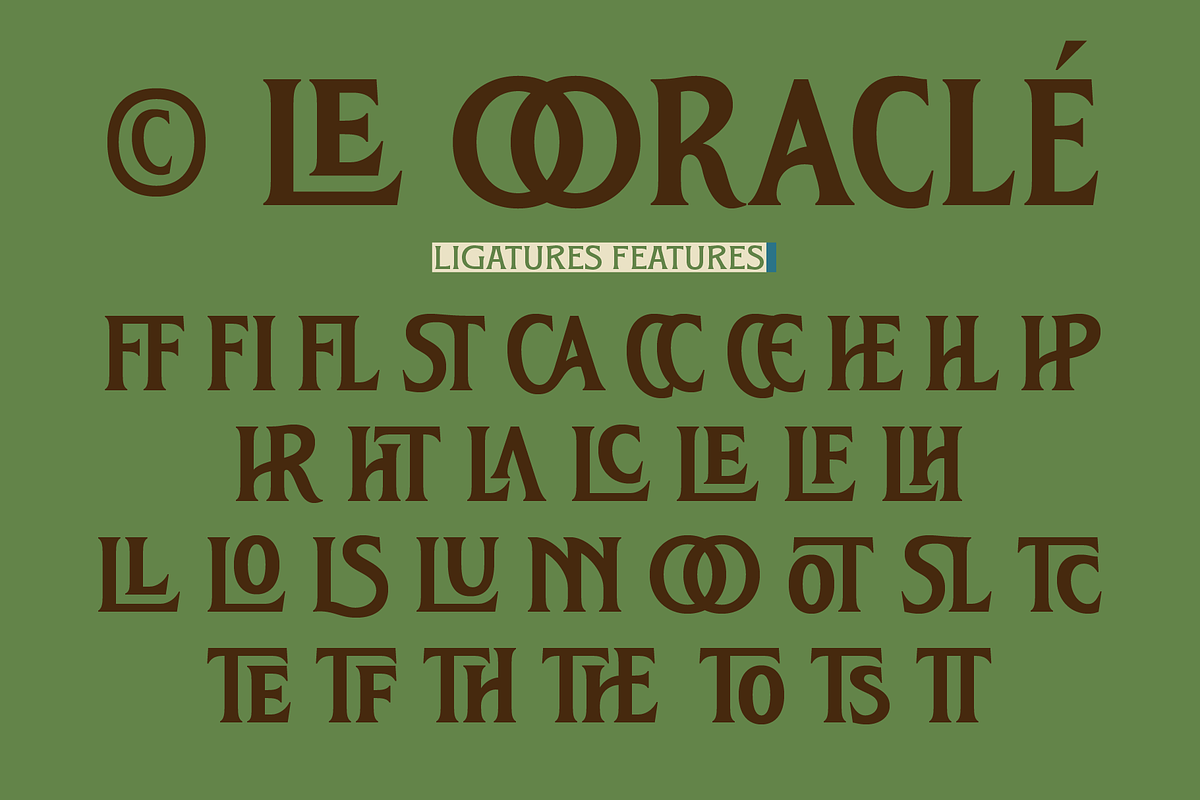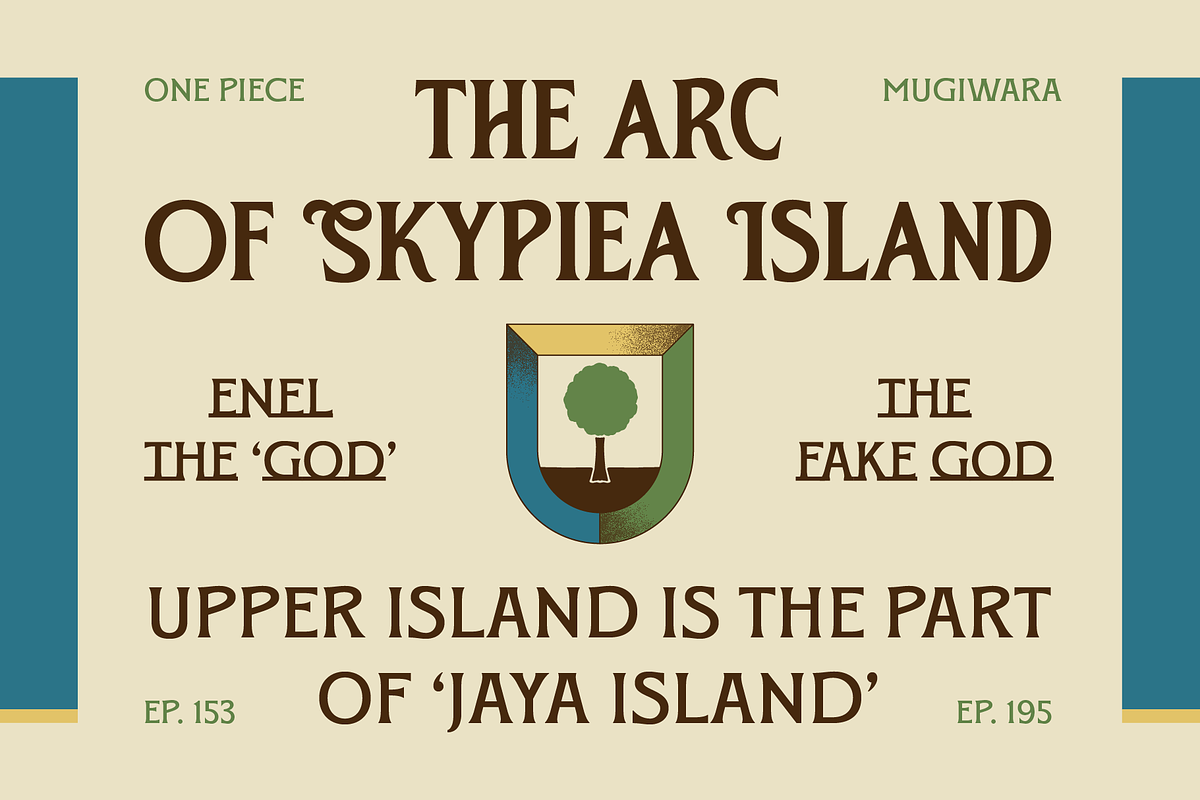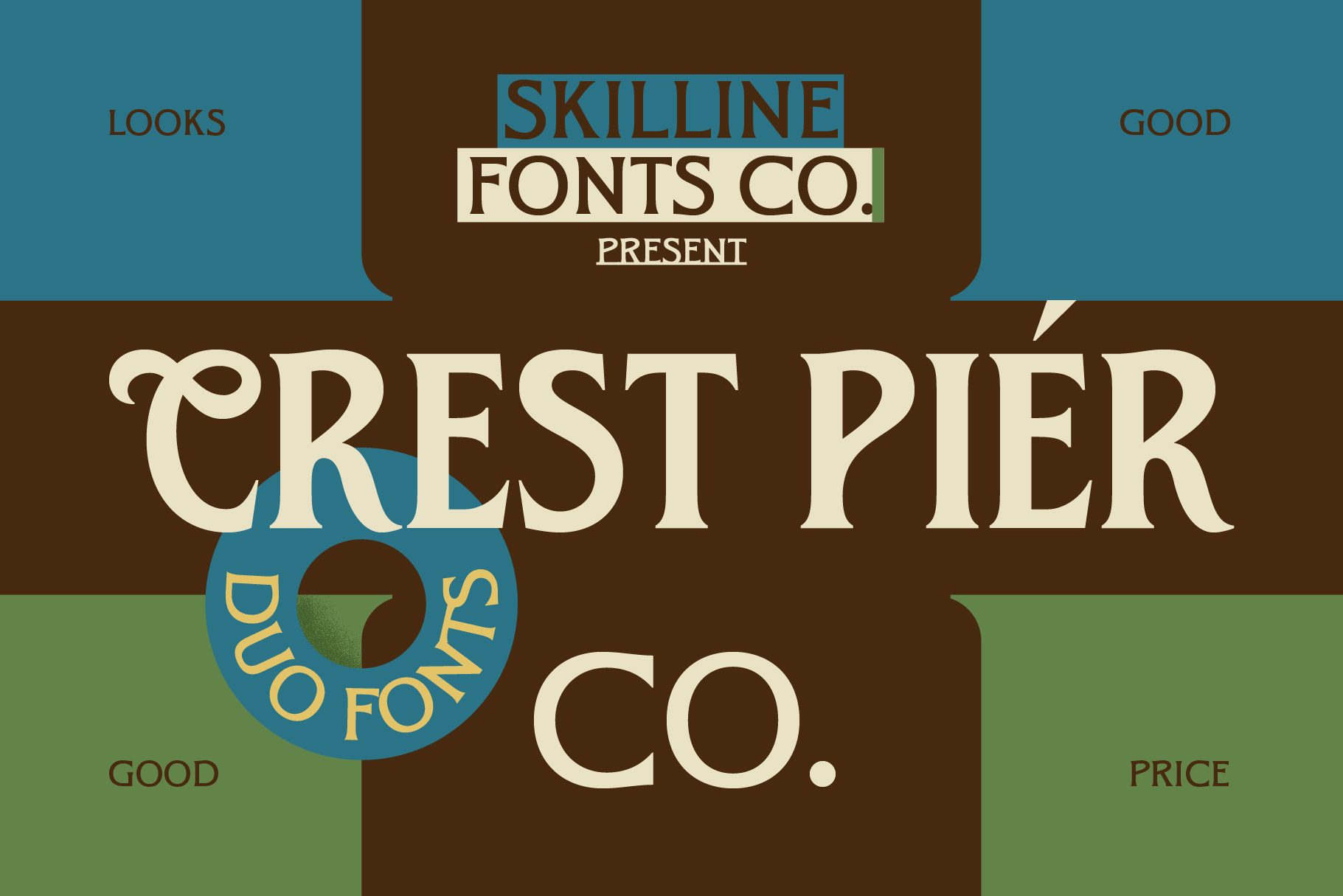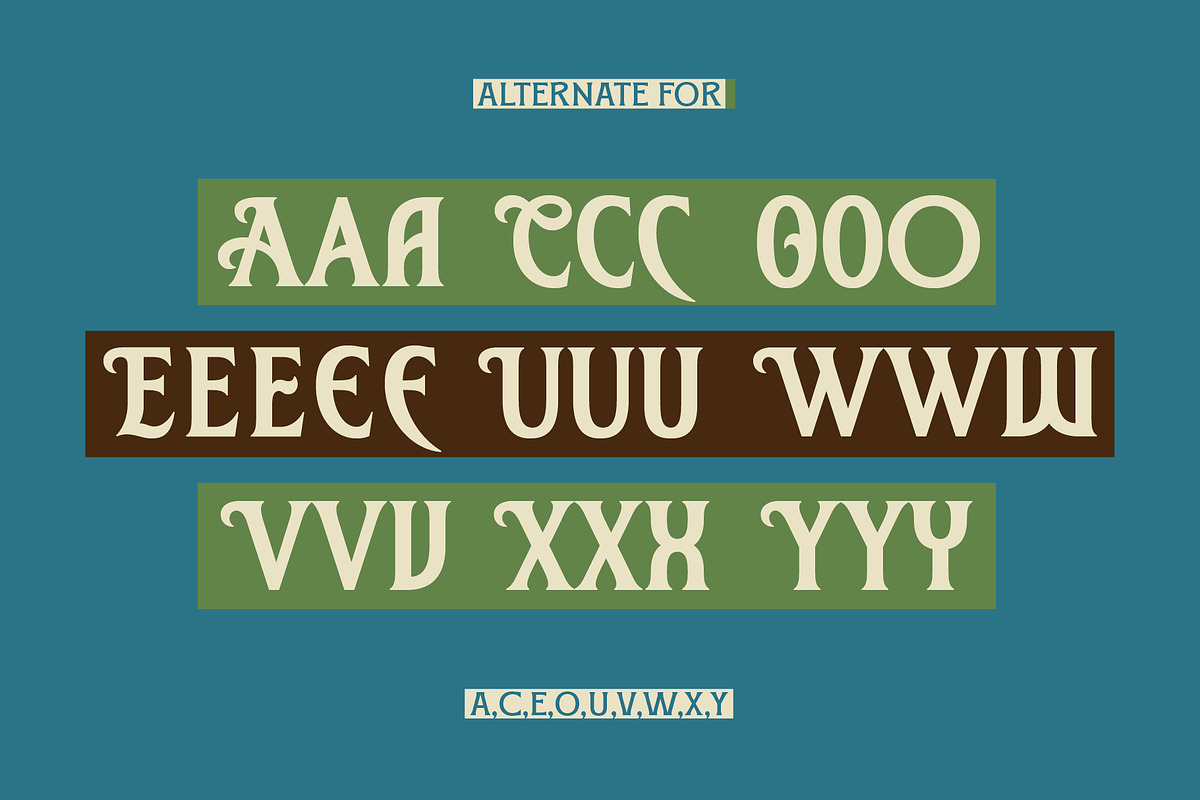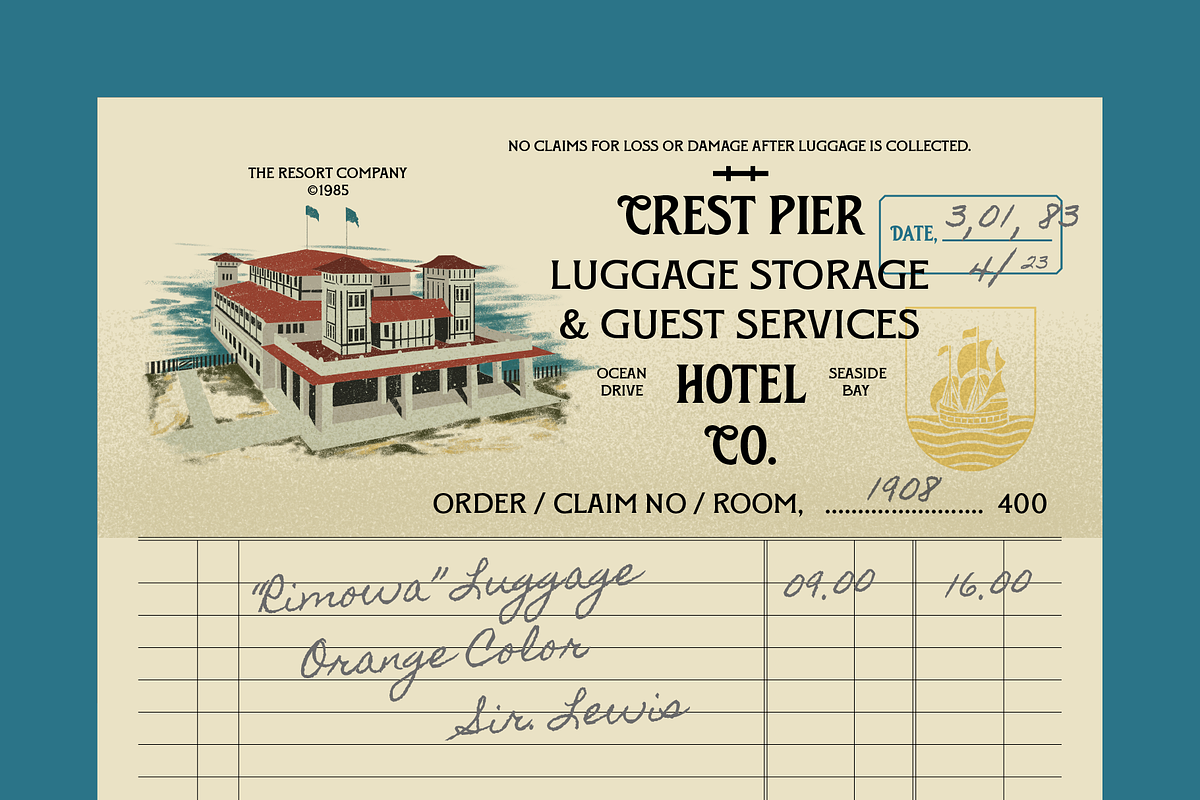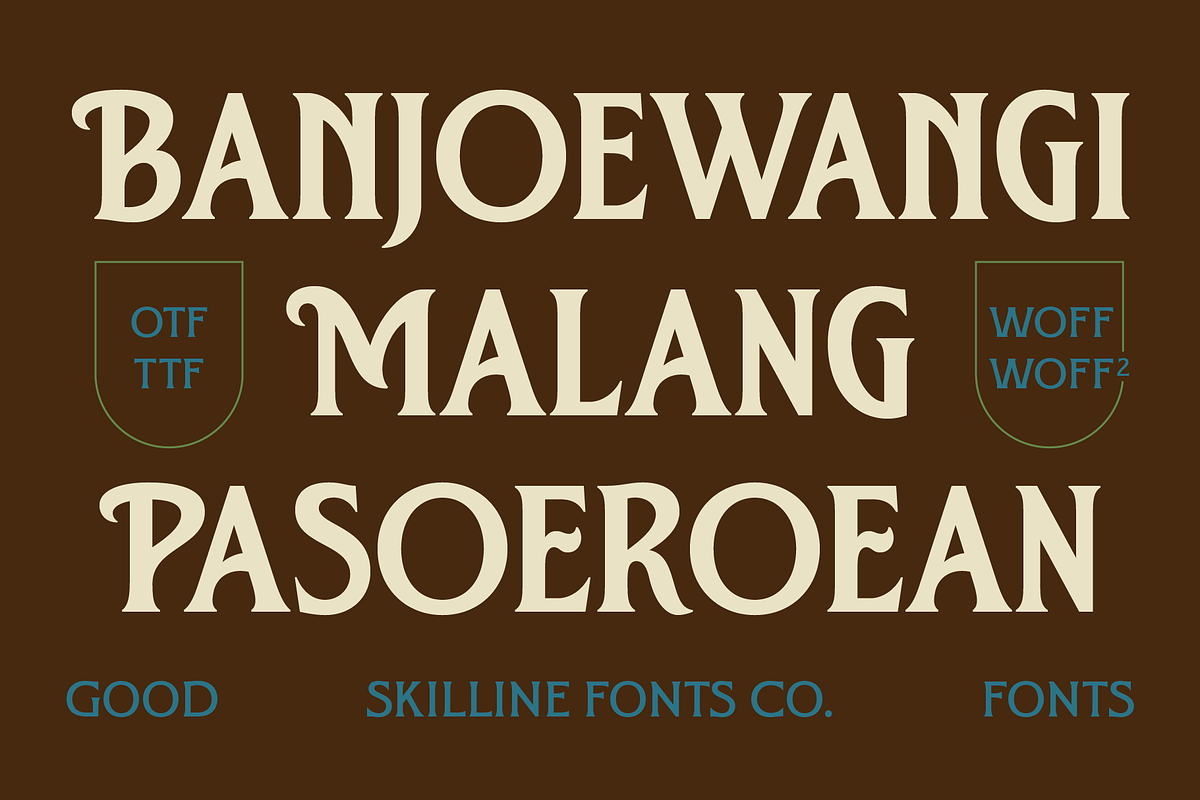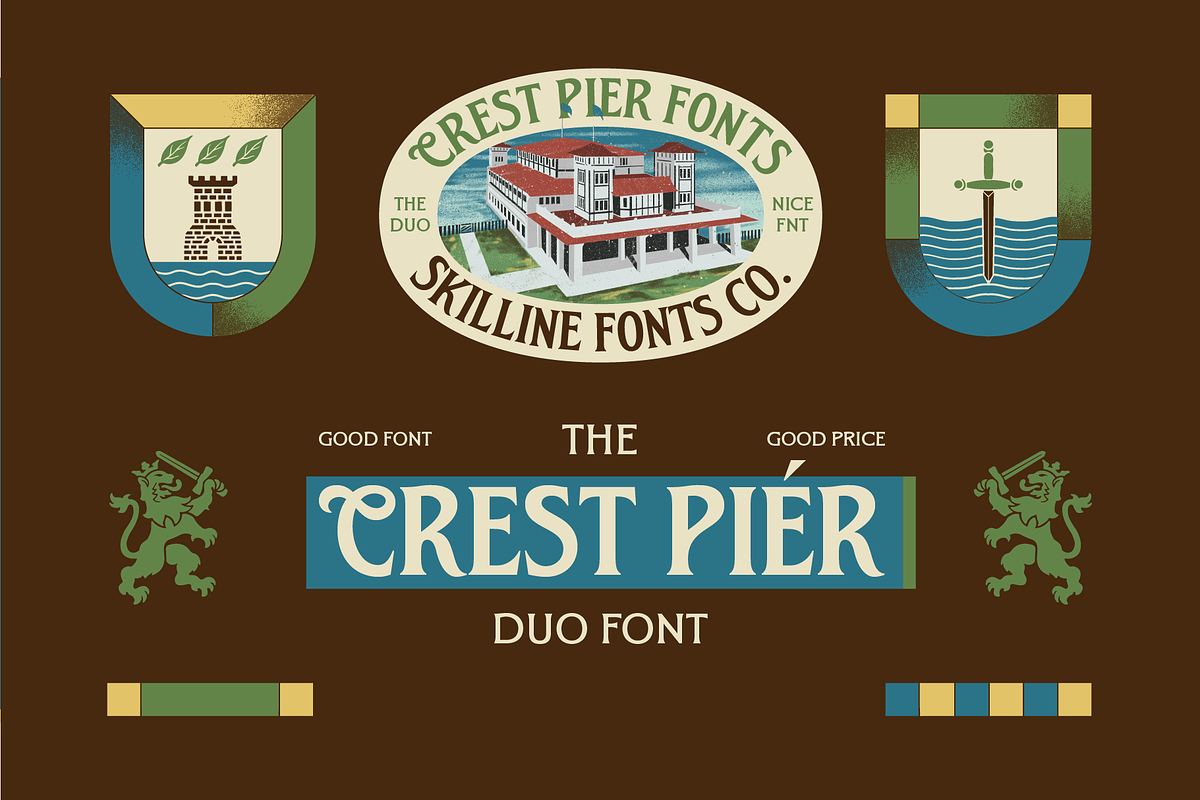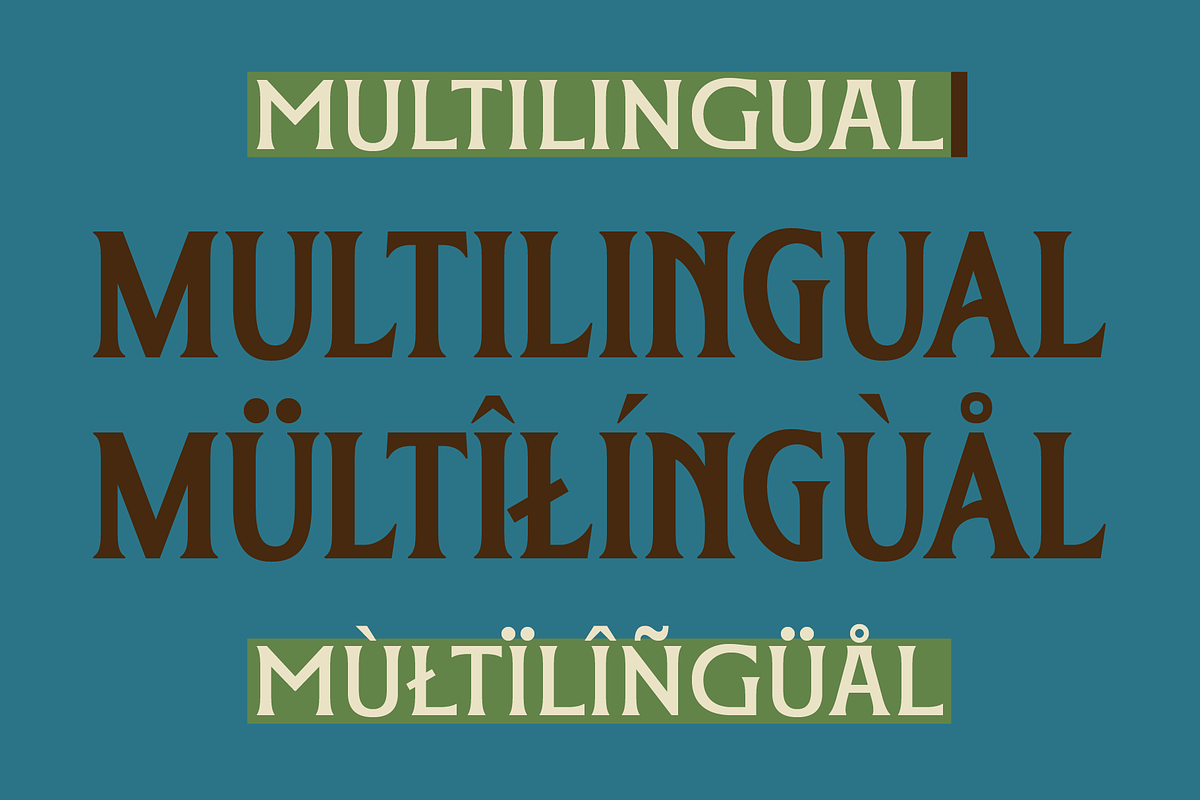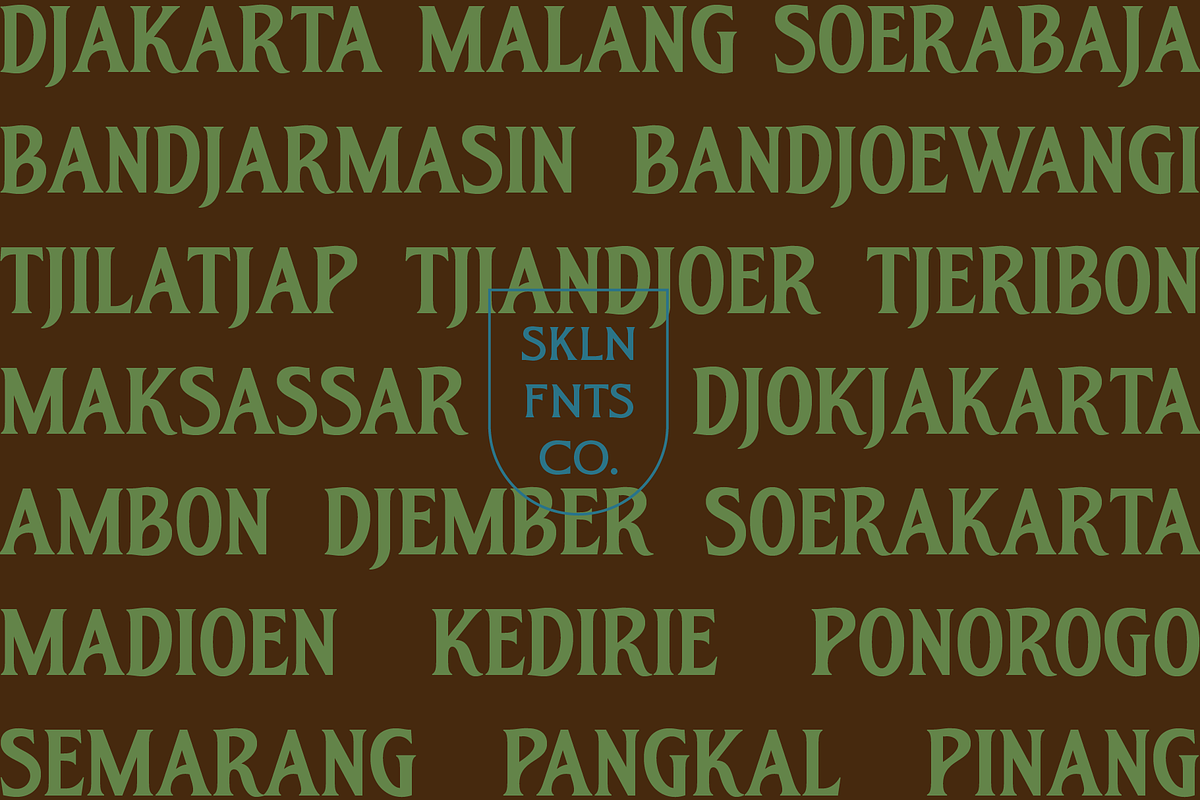
SFC Crest Pier - Duo Font + Extras
SFC Crest Pier is a sophisticated vintage serif font family inspired by classic European coastal signage, heritage hotel branding, and timeless maritime aesthetics.
Crafted with elegant high-contrast strokes, refined proportions, and soft flared terminals, this typeface blends luxury and nostalgia into a versatile design tool.
But Crest Pier is more than just a font, it comes with a complete set of vintage badge illustrations and logo elements, allowing you to instantly create cohesive branding without starting from scratch.
From premium logos to editorial layouts and packaging, this package gives you everything you need to build a strong vintage identity with ease.
FONT FEATURES
Ligatures (FF, FI, FL, AE, OE, etc.)
Clean kerning & spacing
High-contrast serif design
EXTRAS INCLUDED
Vintage badge illustrations (maritime & heraldic style)
Crest / shield logo elements
Icon set (ship, lighthouse, sword, tree, waves, etc.)
Ready-to-use badge compositions
Decorative elements for branding